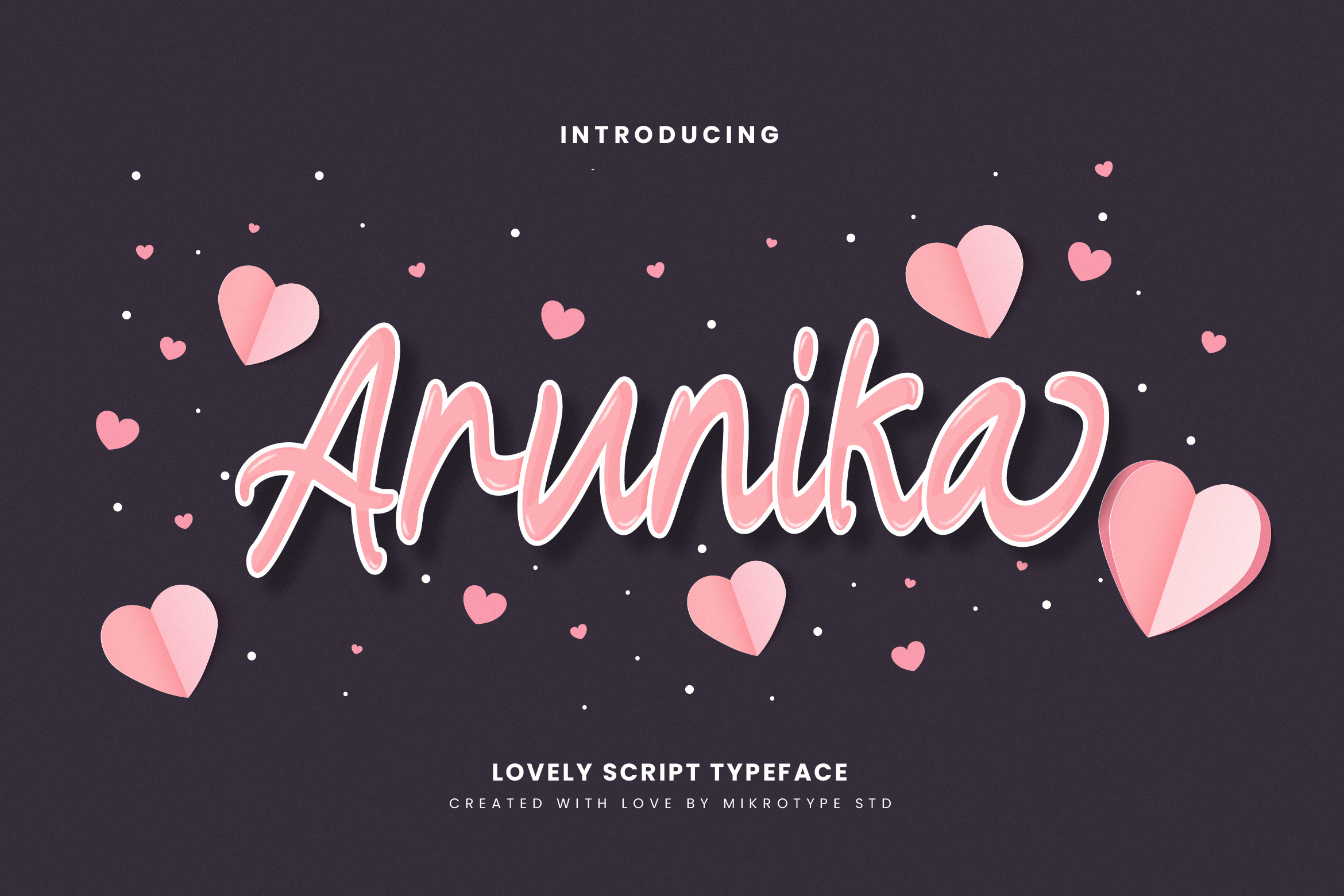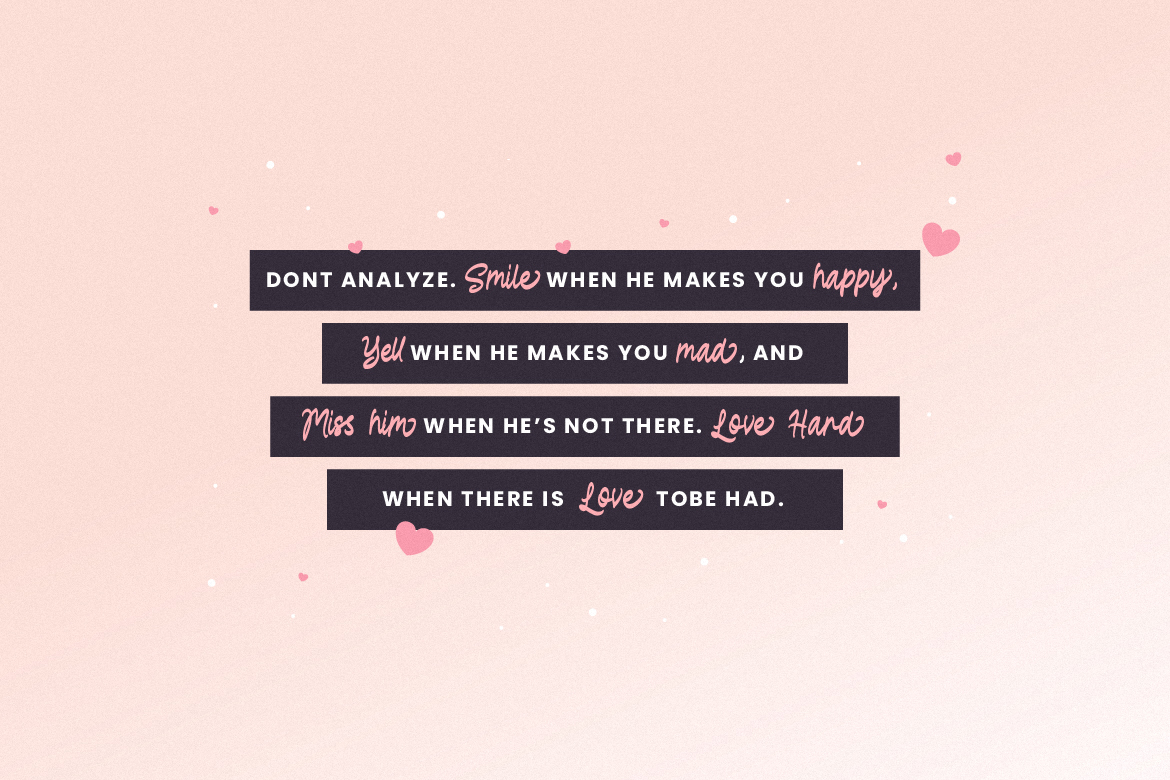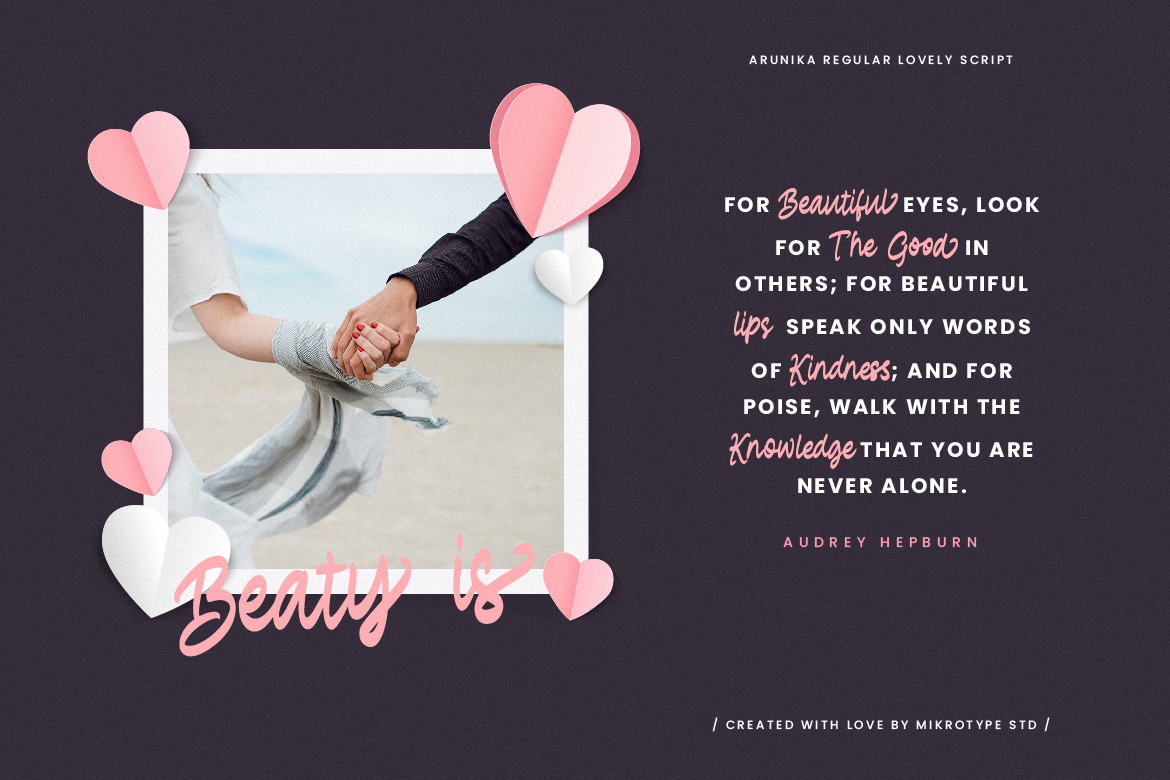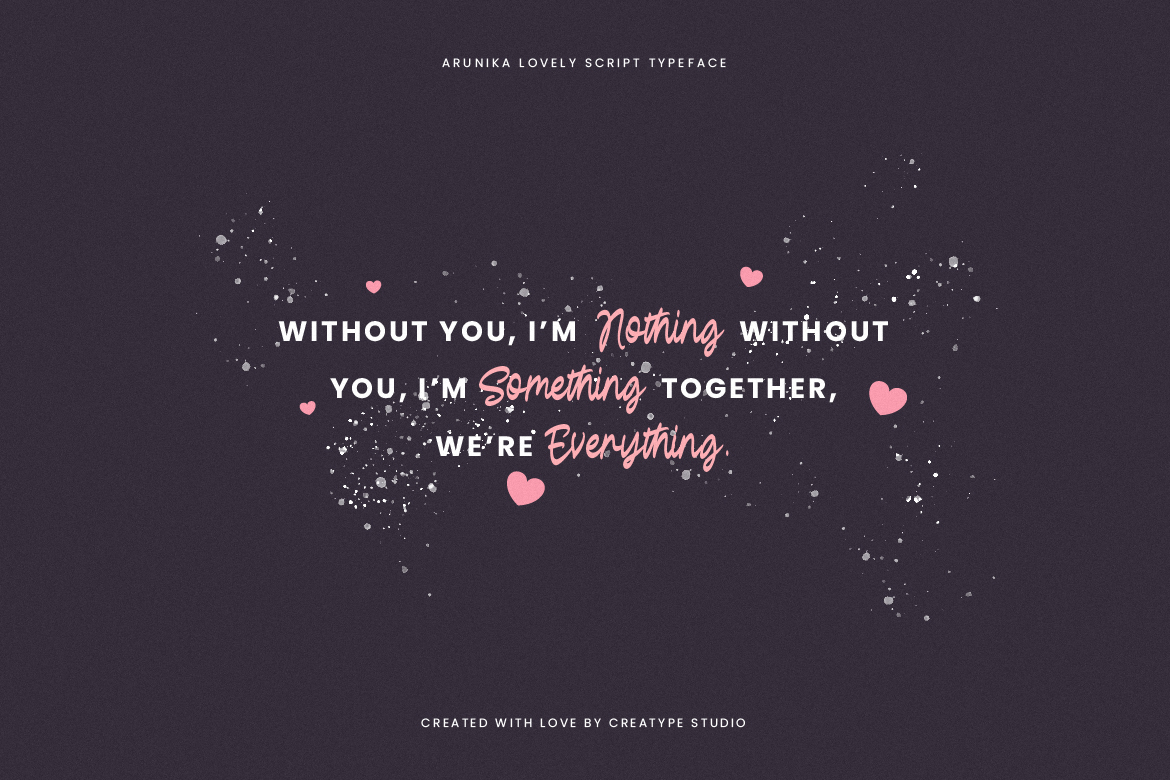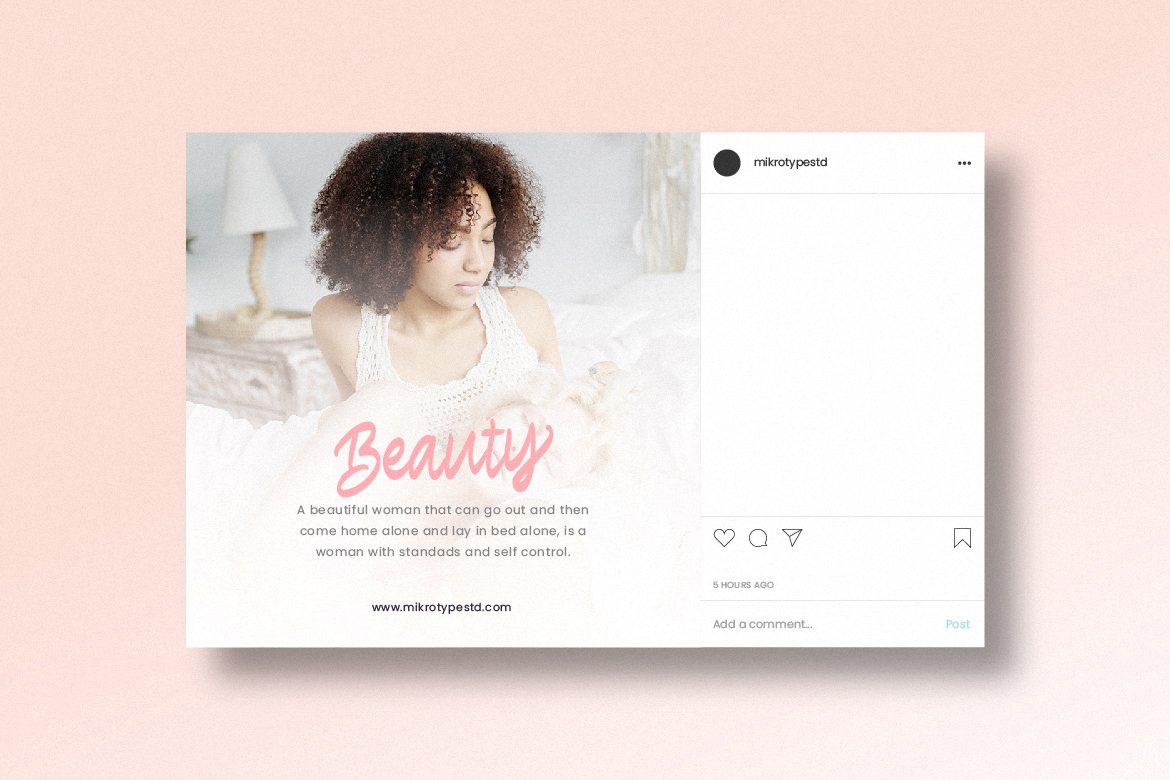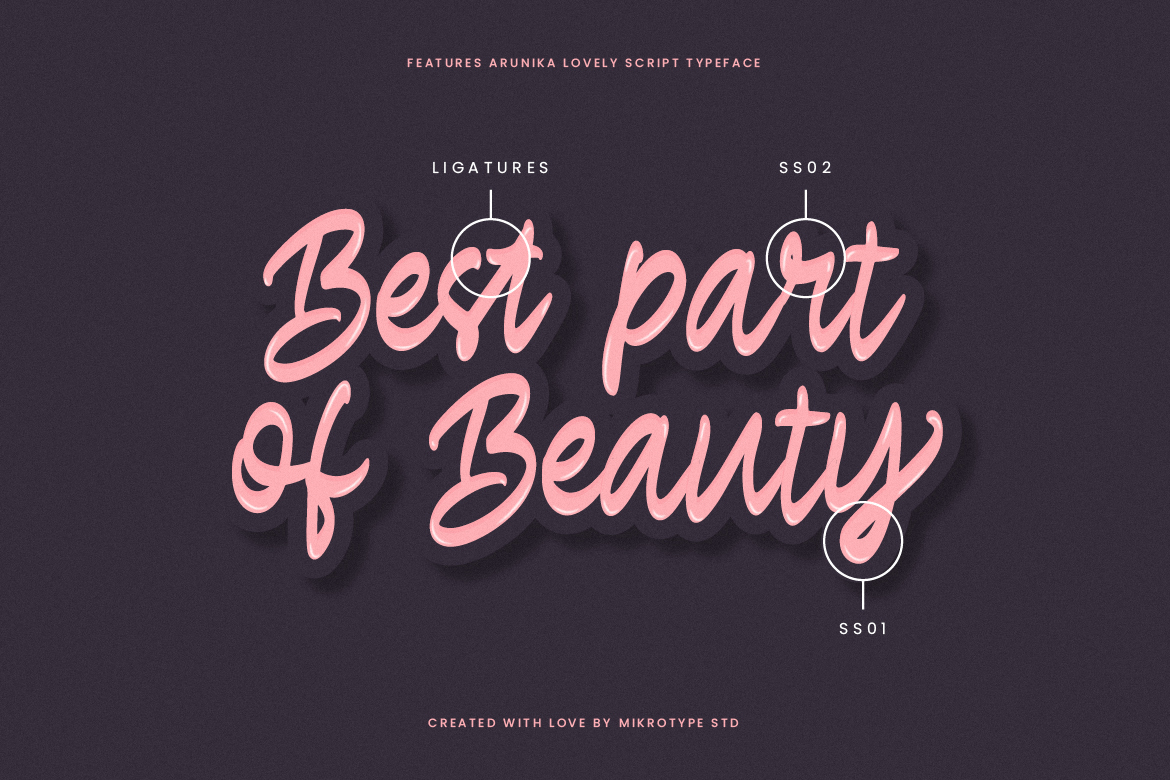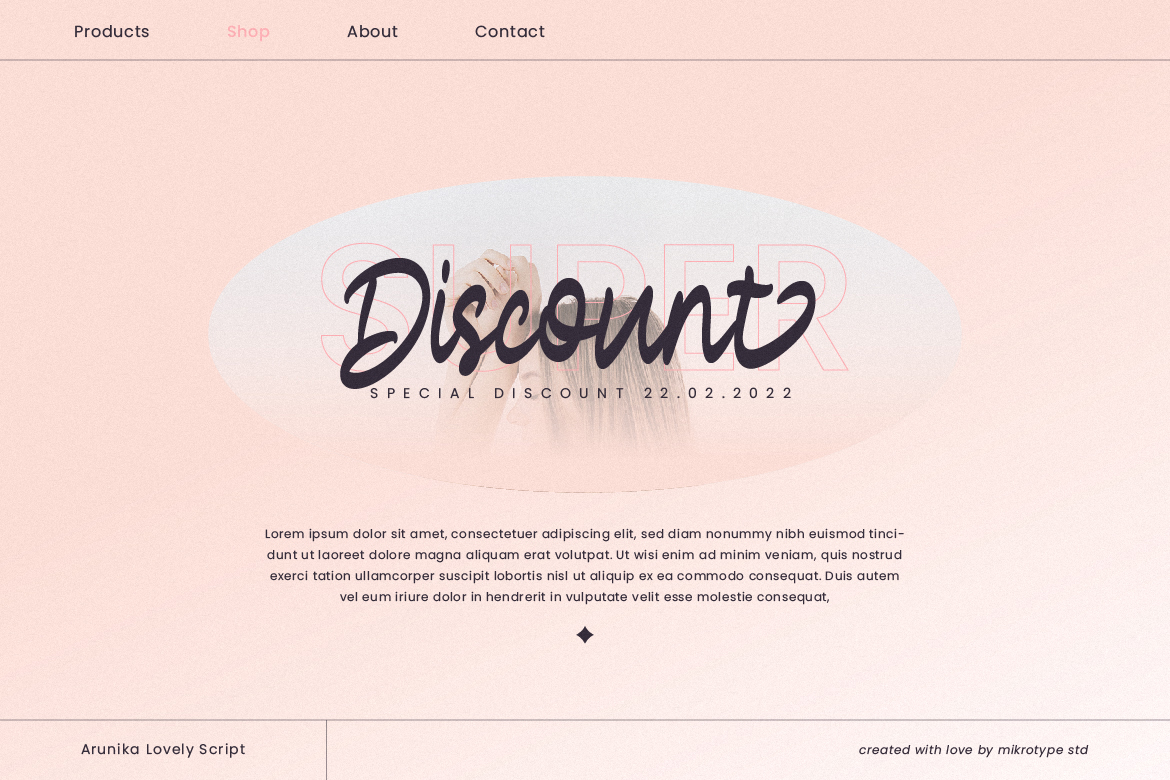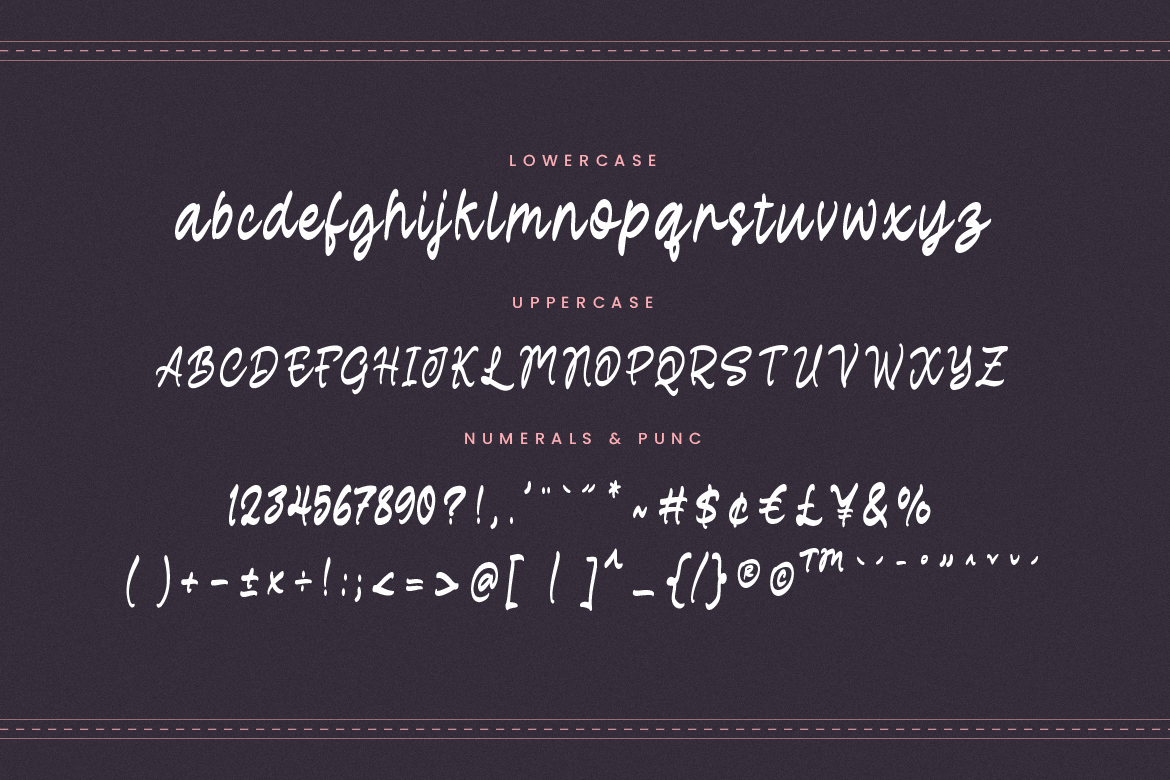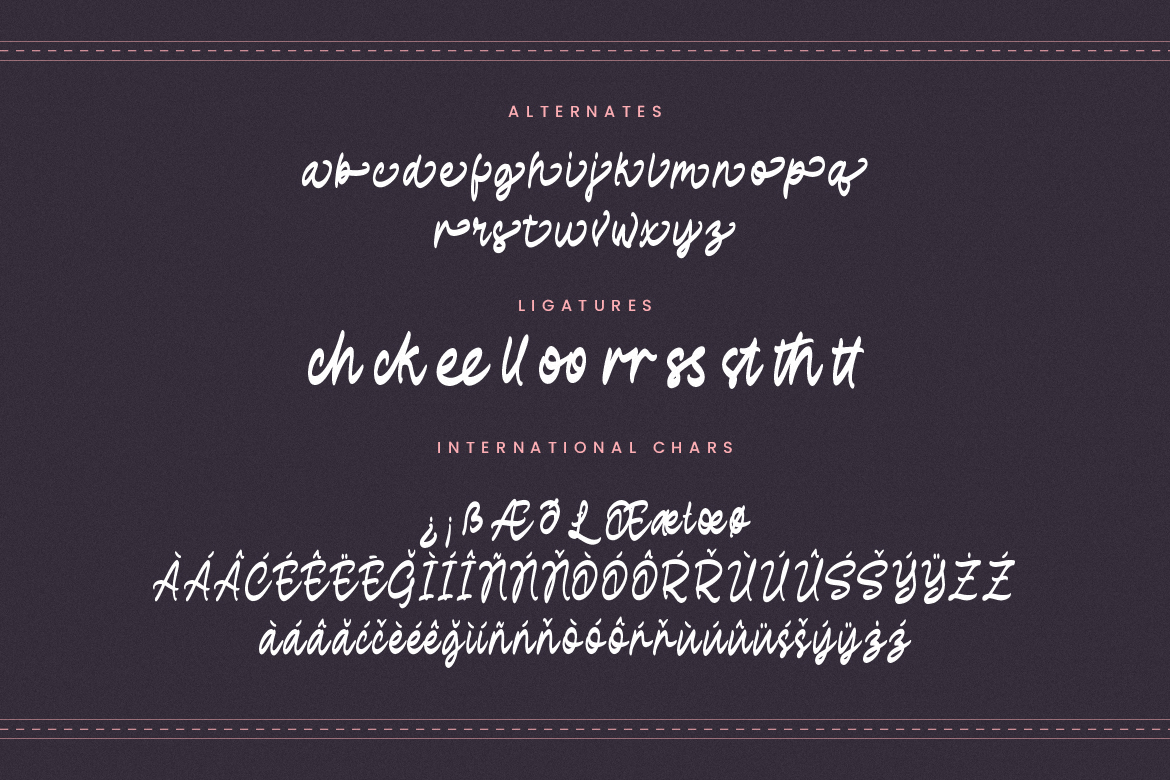
Arunika Beauty Business Font
Introducing Arunika – Alovely script typeface, with a unique and cute shape that sets this font apart from the rest. There are 27 alternates types and 10 types of ligatures that will give your product a great look. The font is perfect for for movie title, logo, blogging, brand identity, book title, social media, branding, wedding invites, cards or simply use it in your next design project and suitable to use for many occasion.
- Fonts include multilingual support for; Afrikaans, Albanian, Czech, Danish, Dutch, English, Estonian, Finnish, French, German, Hungarian, Italian, Latvian, Lithuanian, Norwegian, Polish, Portuguese, Slovak, Slovenian, Spanish, Swedish.